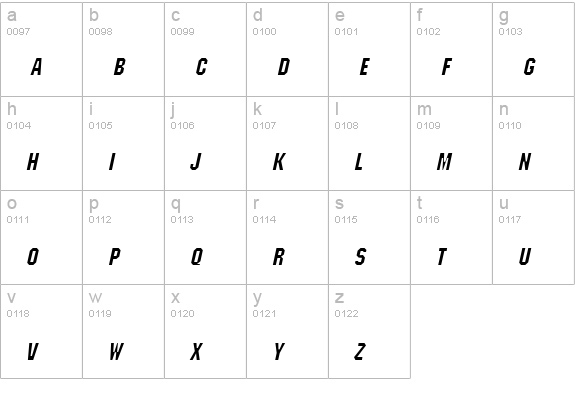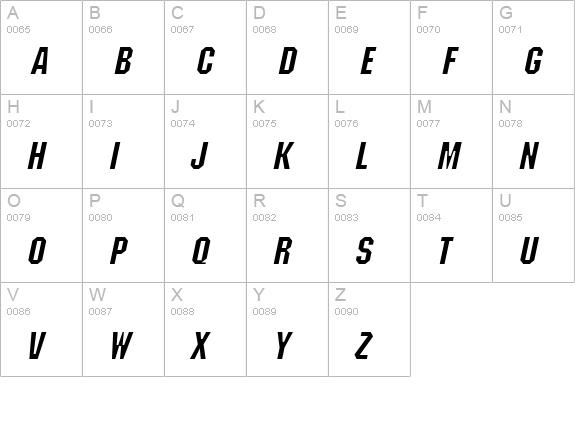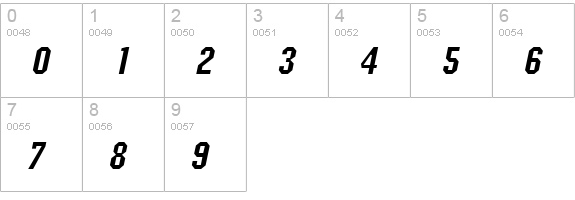
Block Italic is a distinctive, italic variant in the Block typeface family \xE2\x80\x94 well suited to design and typography projects.
Block Italic font is a modern and stylish typeface that adds a bold touch to any design project. With its clean lines and unique slanted style, this font is perfect for creating eye-catching titles, headers, and logos. The Block Italic font is versatile and can be used in a variety of design applications, making it a must-have for any designer looking to make a statement. Best of all, the Block Italic font is available for free download at FontsMarket.com. Simply head over to the website and download this incredible font to add a touch of sophistication to your next project. Whether you're designing a website, creating a poster, or working on a branding project, the Block Italic font is sure to elevate your design and make a lasting impression.